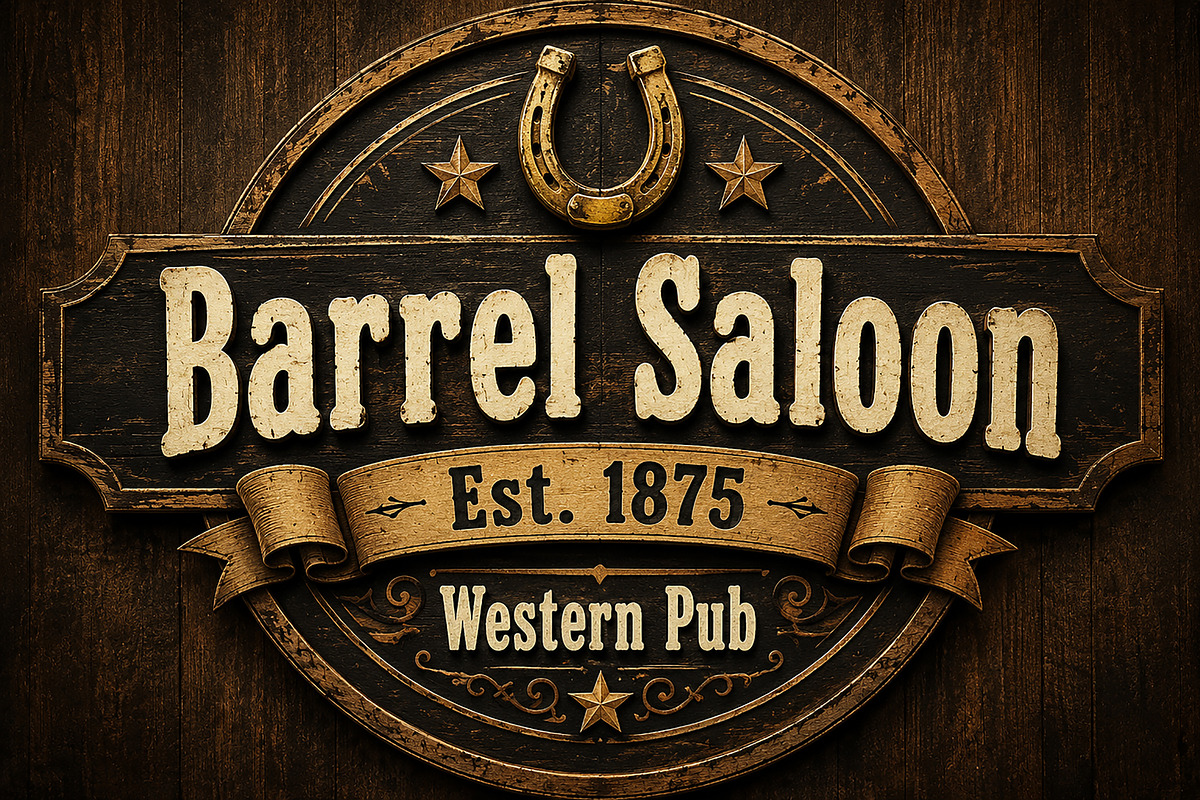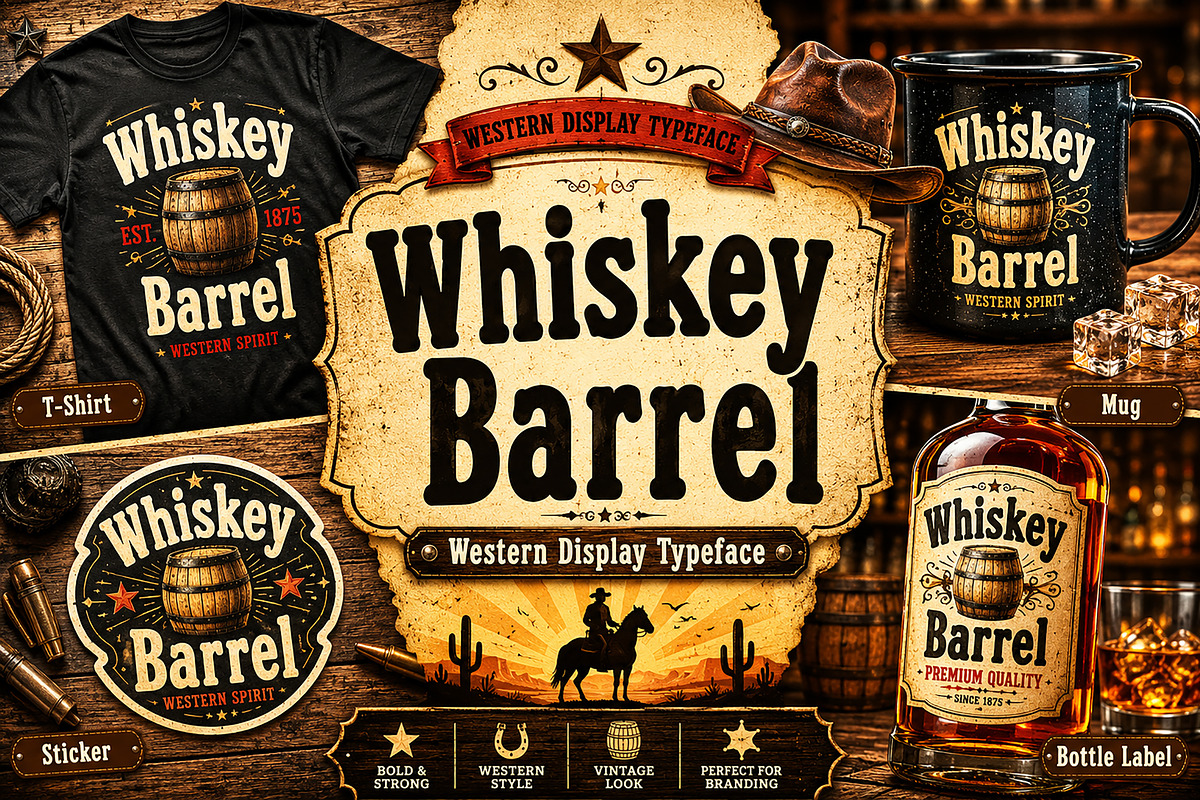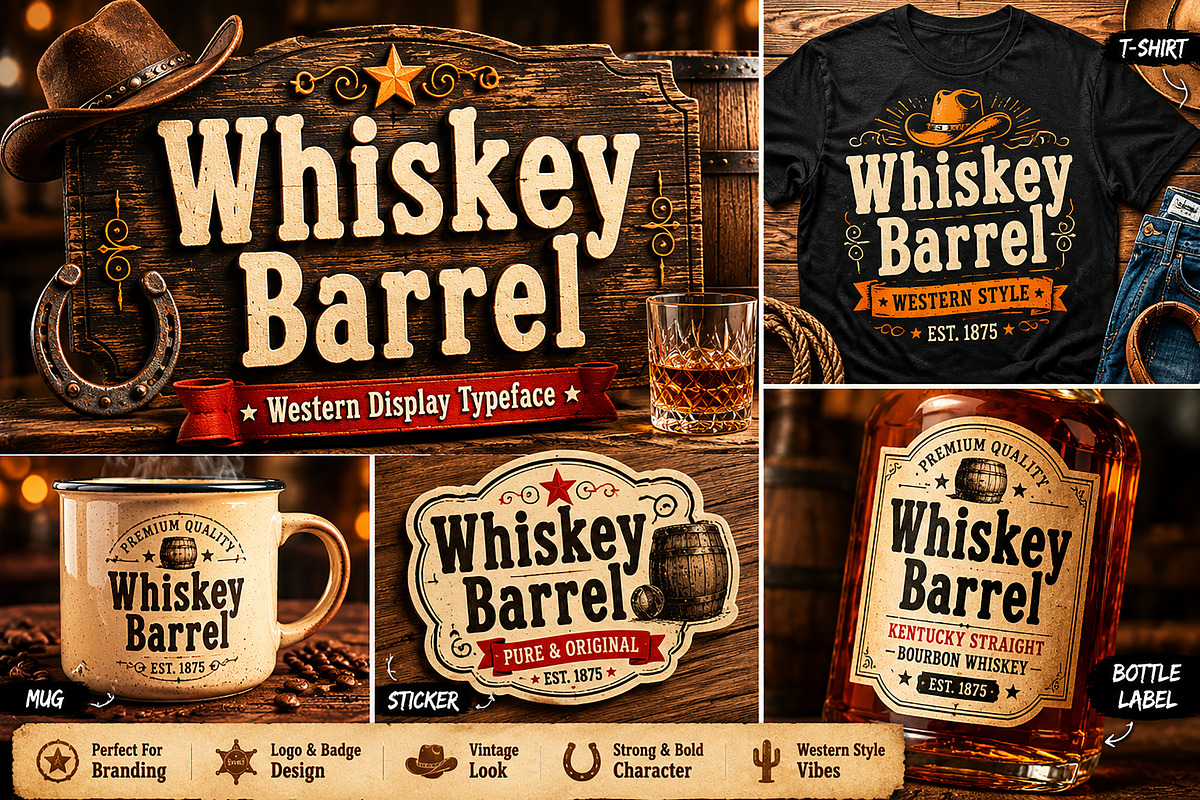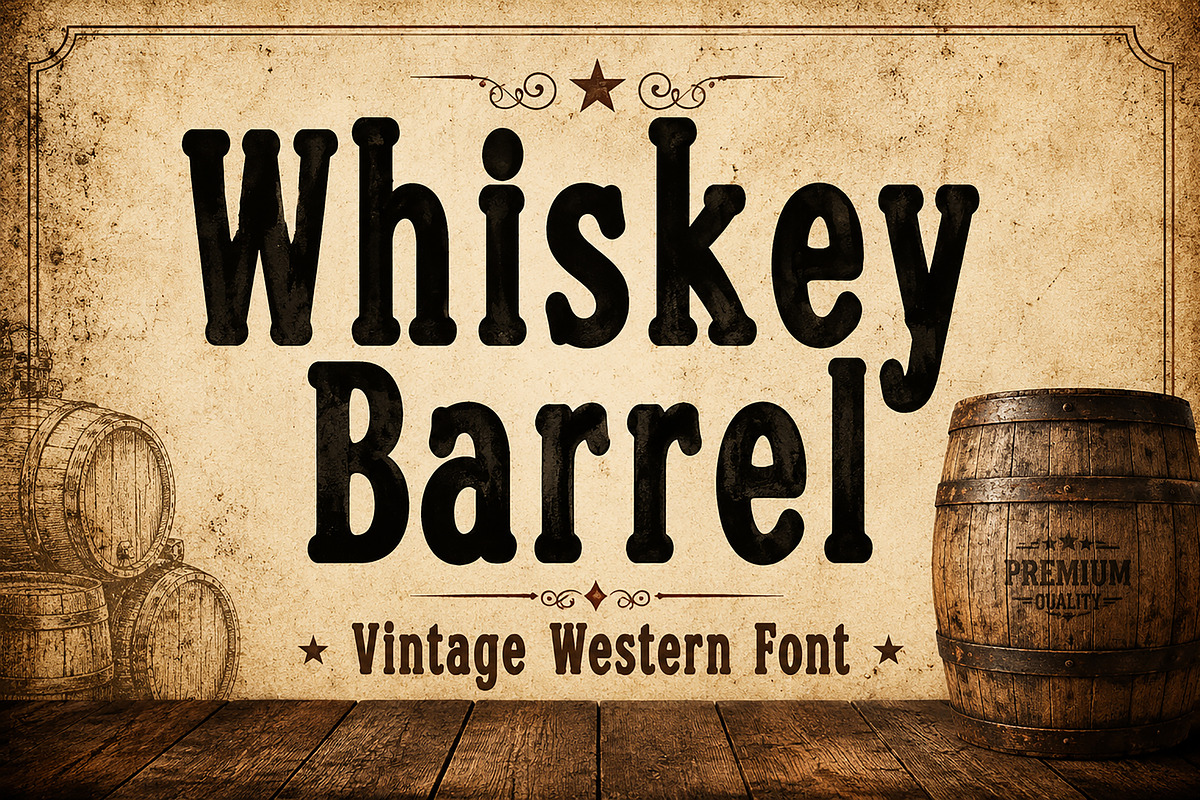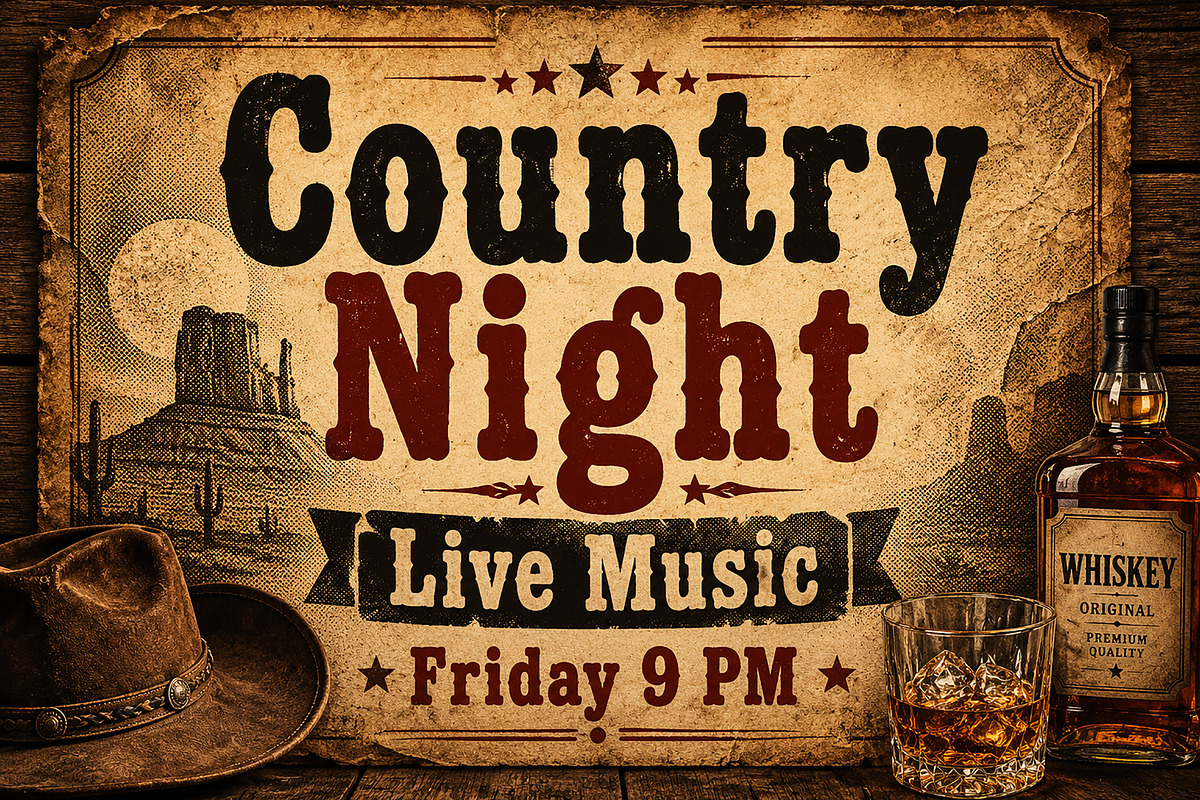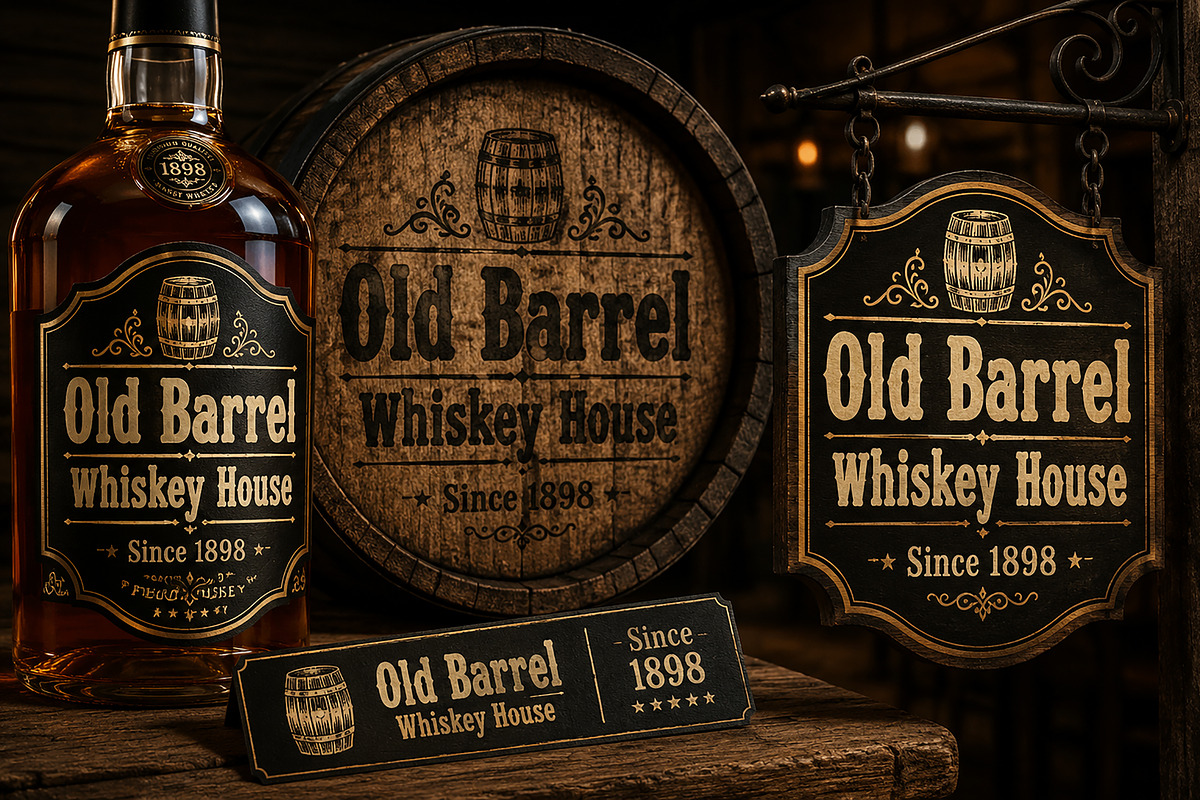
Whiskey Barrel
Whiskey Barrel – Vintage Western Display Font
Whiskey Barrel is a bold vintage western display font inspired by classic saloon signs, whiskey labels, rustic wood branding, and old cowboy culture. Featuring strong letterforms with an authentic handcrafted western feel, this typeface is perfect for creating eye-catching retro designs with a rugged vintage personality.
Designed for logos, branding, apparel, posters, packaging, pub signage, whiskey labels, and print-on-demand products, Whiskey Barrel brings a timeless wild west atmosphere to every project. Its bold style works perfectly for both modern vintage branding and classic Americana-inspired designs.
Whether you are creating a saloon logo, country event poster, western-themed merchandise, or rustic packaging design, Whiskey Barrel delivers a powerful and memorable visual impact.
Western & Cowboy Branding
Whiskey & Liquor Labels
Vintage Logos & Badges
Saloon Signs & Pub Branding
T-shirt & Apparel Design
Posters & Event Flyers
Packaging & Merchandise
Rustic Social Media Graphics
Stickers & Print-on-Demand Products
Bold Western Style
Vintage Rustic Feel
Strong Display Typeface
Perfect for Retro Branding